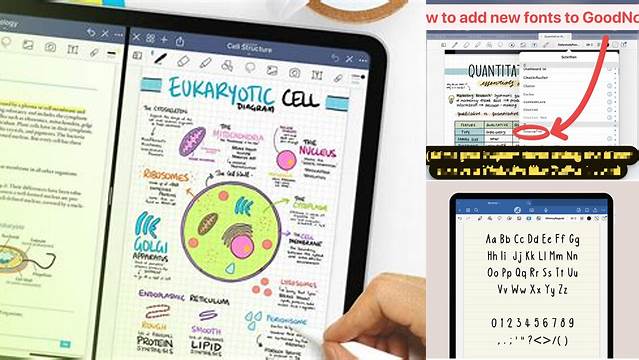
Best Fonts For GoodNotes: Enhance Your Notes
Are you looking to transform your digital notes into visually stunning masterpieces? Well, you've come to the right place! In this article, we're diving deep into the world of GoodNotes fonts, exploring the best options to enhance your note-taking experience. GoodNotes is an incredible app, guys, but let's be real – the default fonts can be a bit…meh. Choosing the right font can make a huge difference in how you perceive and engage with your notes. It's not just about aesthetics; it's about readability, organization, and even your personal style. So, buckle up, and let's discover the perfect fonts to make your GoodNotes notes pop!
Why Fonts Matter in GoodNotes
Now, you might be thinking, "Fonts? Really? Do they really matter that much?" And the answer, my friends, is a resounding YES! Think about it: you're spending hours crafting these notes, pouring your heart and soul into capturing information and ideas. Why not present them in a way that's both pleasing to the eye and effective for learning? Fonts play a crucial role in several aspects of your note-taking process:
- Readability: Let's start with the obvious. A clear, legible font makes your notes easier to read, especially when you're reviewing them later. Imagine trying to decipher scribbled handwriting – frustrating, right? A well-chosen font eliminates that struggle, ensuring your notes are always accessible and understandable.
- Organization: Fonts can be powerful tools for visual organization. Use different fonts for headings, subheadings, and body text to create a clear hierarchy and guide your eye through the information. This makes it easier to scan your notes and quickly find what you're looking for. For example, a bold, sans-serif font for headings and a clean, serif font for the body text can work wonders.
- Engagement: Let's face it: boring notes are hard to engage with. A visually appealing font can make your notes more interesting and inviting, encouraging you to spend more time reviewing them. Choose a font that reflects your personality and style – something that makes you want to open your notes and dive in.
- Personal Style: Your notes are an extension of you, your thoughts, and your learning process. Selecting fonts that resonate with your personal style can make your note-taking experience more enjoyable and fulfilling. Whether you prefer a classic, elegant look or a modern, minimalist vibe, there's a font out there that perfectly matches your taste.
- Improved Recall: Studies have shown that the fonts you use can actually impact memory recall. Choosing fonts that are slightly less common or have unique characteristics can make your notes more memorable. This is because your brain has to work a little harder to process the information, leading to deeper encoding and better retention.
In short, fonts are not just a cosmetic detail; they're a fundamental element of effective note-taking. So, let's get into the good stuff and explore some amazing font recommendations for GoodNotes!
Top Font Recommendations for GoodNotes
Alright, guys, let's get down to the nitty-gritty! Here are some of my top font recommendations for GoodNotes, broken down into categories to help you find the perfect fit for your needs and preferences.
Serif Fonts: Classic and Elegant
Serif fonts are characterized by the small strokes or "serifs" at the ends of the letters. They often evoke a sense of tradition, elegance, and readability, making them a great choice for body text and longer passages of writing. Here are a few standout serif fonts for GoodNotes:
- Times New Roman: A classic for a reason, Times New Roman is a highly legible and widely recognized serif font. It's a safe bet for clear and professional-looking notes.
- Georgia: Georgia is a serif font designed for on-screen readability. It has a larger x-height and wider proportions than Times New Roman, making it even easier to read on digital devices. It is especially useful if you prefer a more readable classic font.
- Baskerville: Baskerville is a sophisticated and refined serif font with a touch of elegance. It's a great choice for notes that need a slightly more formal or academic feel. Baskerville has a timeless quality that makes it suitable for a variety of subjects.
- Palatino: Palatino is a humanist serif font known for its graceful curves and balanced proportions. It's a highly readable font that works well for both body text and headings. Its unique design gives a sense of warmth and sophistication to your notes.
These serif fonts bring a touch of sophistication to your notes, making them ideal for subjects that require a formal or academic tone. Remember, the key is to choose a font that enhances readability and complements your personal style. These fonts are particularly useful when you're dealing with a lot of text, as they help to guide the eye and prevent fatigue. Think of using them for lecture notes, research summaries, or essay outlines. The classic and elegant feel of serif fonts can also add a touch of professionalism to your digital workspace.
Sans-Serif Fonts: Modern and Minimalist
Sans-serif fonts, as the name suggests, lack the serifs found in serif fonts. They typically have a cleaner, more modern look and are often favored for headings, subheadings, and shorter blocks of text. Here are some fantastic sans-serif options for GoodNotes:
- Helvetica: Helvetica is a quintessential sans-serif font known for its clean lines and neutral appearance. It's a versatile choice that works well in a variety of contexts. Its simplicity makes it incredibly readable, making your notes clear and concise.
- Arial: Arial is another widely used sans-serif font that's similar to Helvetica but with some subtle differences. It's a reliable and legible option for everyday note-taking. Arial is a great option if you're looking for a straightforward, no-fuss font.
- Open Sans: Open Sans is a humanist sans-serif font designed with readability in mind. It has a friendly and approachable feel, making it a great choice for notes that you want to be both clear and inviting. Its open forms and neutral appearance make it incredibly versatile.
- Montserrat: Montserrat is a geometric sans-serif font with a modern and stylish vibe. It's a great option for headings and subheadings, adding a touch of personality to your notes. The font's distinct design makes it stand out, ensuring your headings grab attention.
These sans-serif fonts offer a clean and contemporary aesthetic, perfect for those who prefer a minimalist look. They are particularly effective for headings and subheadings, creating a clear visual hierarchy within your notes. Sans-serif fonts are also great for diagrams, charts, and other visual elements, as they don't distract from the content itself. If you're aiming for a modern, efficient, and uncluttered note-taking style, these fonts are definitely worth exploring. Consider using them for subjects like math, science, or technology, where clarity and precision are paramount.
Handwriting Fonts: Personal and Unique
Want to add a personal touch to your notes? Handwriting fonts are a fantastic way to do it! These fonts mimic the look of handwritten text, giving your notes a more informal and unique feel. However, it's important to use them sparingly and ensure they remain legible. Here are a few handwriting fonts that work well in GoodNotes:
- Caveat Brush: Caveat Brush is a casual and expressive handwriting font with a slightly rough texture. It's a great choice for adding personality to your notes. This font adds a relaxed, handwritten touch without sacrificing legibility.
- Permanent Marker: As the name suggests, Permanent Marker mimics the look of a marker pen. It's bold and attention-grabbing, making it suitable for headings or emphasis. Use this font to highlight key points or create impactful titles.
- Schoolbell: Schoolbell is a playful and nostalgic handwriting font that evokes the feeling of classic school notebooks. It's a fun option for adding a touch of whimsy to your notes. This font can make learning feel a bit more lighthearted and engaging.
- Coming Soon: Coming Soon is a quirky and informal handwriting font with a slightly uneven baseline. It adds a touch of character to your notes. It is a unique option for giving your notes a hand-crafted feel.
Handwriting fonts can inject personality into your notes, making them feel more like your own. Use them judiciously for headings, annotations, or special sections to add a touch of flair. These fonts are perfect for personal notes, journaling, or adding emphasis to specific ideas. However, remember to maintain readability; avoid using handwriting fonts for large blocks of text, as they can become tiring to read. Instead, consider them as accents to your primary font choices, creating a balanced and visually appealing note-taking style. Think of using them for brainstorming sessions, personal reflections, or creating visually engaging study guides.
How to Add Fonts to GoodNotes
Okay, so you've found some fonts you love – awesome! But how do you actually get them into GoodNotes? Don't worry, the process is super simple. Here's a quick guide:
- Download the Fonts: First, you'll need to download the font files (usually in .ttf or .otf format) from a reputable source. There are tons of free font websites out there, like Google Fonts and Font Squirrel. Make sure you're downloading fonts from a safe and trusted website to avoid any potential issues.
- Install the Fonts on Your iPad: Once you've downloaded the font files, you'll need to install them on your iPad. The easiest way to do this is using a font management app like iFont or AnyFont. These apps allow you to import font files and install them system-wide on your iPad.
- Open GoodNotes and Select Your Font: After installing the fonts, open GoodNotes and tap on the text tool. You should now see your newly installed fonts in the font list! Simply select the font you want to use, and you're good to go.
Adding custom fonts to GoodNotes is a breeze, and it opens up a world of possibilities for personalizing your notes. Experiment with different fonts and find the ones that best suit your style and needs. The flexibility to add custom fonts is one of the many reasons why GoodNotes is a favorite among digital note-takers. It allows you to truly make your notes your own, enhancing both their aesthetic appeal and your overall learning experience. So, don't hesitate to explore the vast world of fonts and discover the perfect ones for your GoodNotes creations!
Tips for Choosing the Right Fonts
With so many font options available, it can be a little overwhelming to choose the right ones for your GoodNotes notes. Here are a few tips to help you make the best choices:
- Prioritize Readability: First and foremost, choose fonts that are easy to read. Avoid overly decorative or stylized fonts that can strain your eyes. A clear and legible font will ensure your notes are always accessible and understandable.
- Consider the Context: Think about the purpose of your notes and the subject matter you're covering. A formal serif font might be appropriate for academic notes, while a playful handwriting font might be better for personal journaling. The context of your notes should guide your font choices.
- Create a Hierarchy: Use different fonts for headings, subheadings, and body text to create a clear visual hierarchy. This will help you organize your notes and make them easier to scan. A consistent font hierarchy will make your notes more structured and effective.
- Limit Your Font Choices: While it's tempting to use lots of different fonts, sticking to a limited palette (2-3 fonts) will create a more cohesive and professional look. Too many fonts can make your notes look cluttered and disorganized. A minimalist approach often yields the best results.
- Test and Experiment: Don't be afraid to try out different fonts and see what works best for you. Experiment with different combinations and find the fonts that you enjoy using and that enhance your note-taking experience. Your personal preferences are key to finding the perfect fonts.
Choosing the right fonts is a personal journey. Take your time, experiment with different options, and find the fonts that make your notes shine. The effort you put into font selection will pay off in the form of more engaging, readable, and effective notes. Remember, your notes are a reflection of your learning process, so choose fonts that inspire you and make you want to dive in. The right fonts can transform your note-taking experience, making it more enjoyable and productive.
So, there you have it, folks! A deep dive into the world of GoodNotes fonts. Choosing the right fonts can truly elevate your note-taking experience, making your notes more readable, organized, and visually appealing. Whether you prefer the classic elegance of serif fonts, the modern simplicity of sans-serif fonts, or the personal touch of handwriting fonts, there's a perfect font (or combination of fonts) out there for you. So, go ahead, experiment, and discover the fonts that will transform your GoodNotes notes into works of art! Happy note-taking!